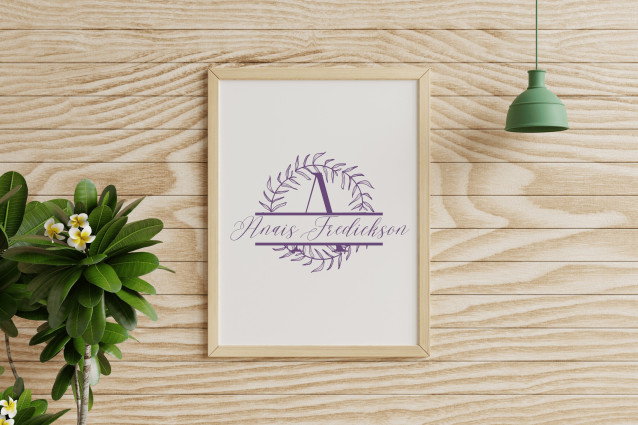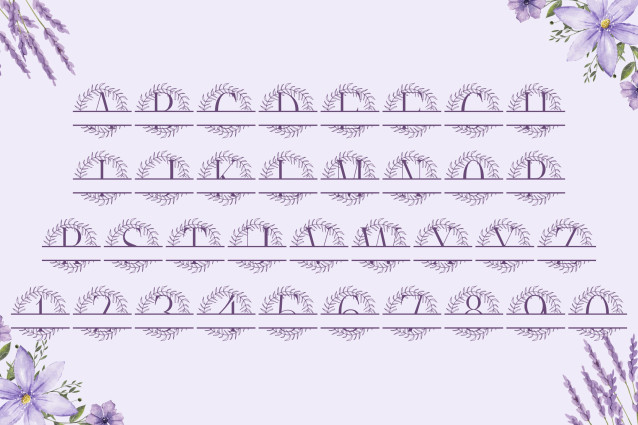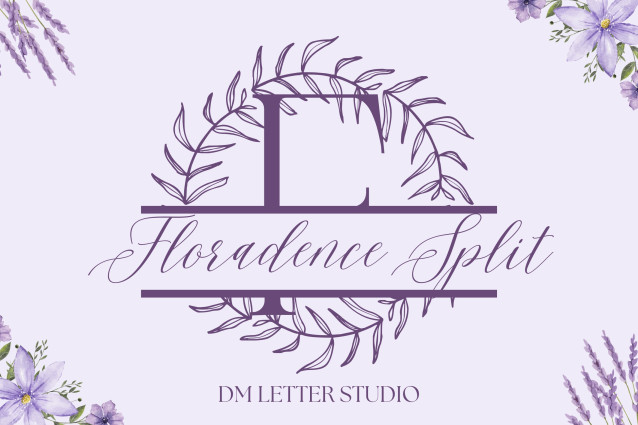
Floradence Split Font
Floradence Split Font is a sophisticated serif split monogram font designed for elegance and customization. Each uppercase letter features a clean horizontal split—perfect for adding names or messages—paired with graceful hand-drawn floral accents. Ideal for Cricut crafts, wedding signage, branding, and personalized gifts.